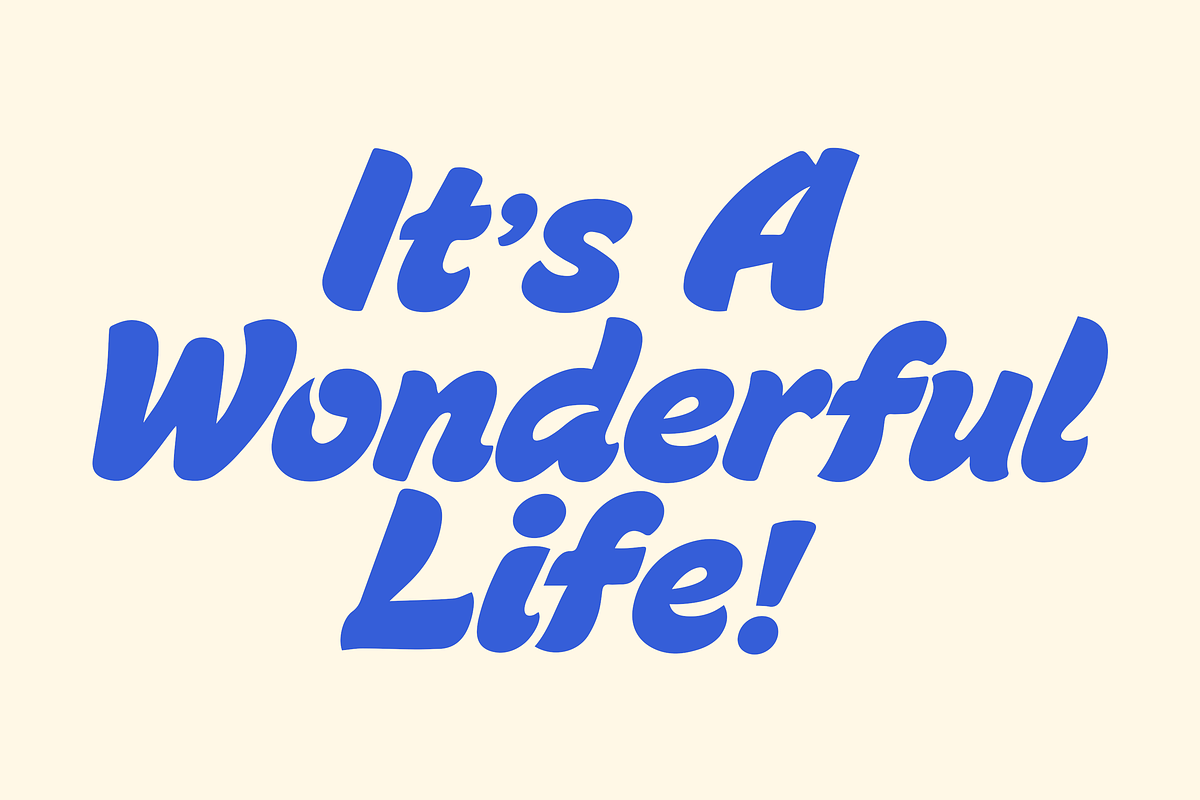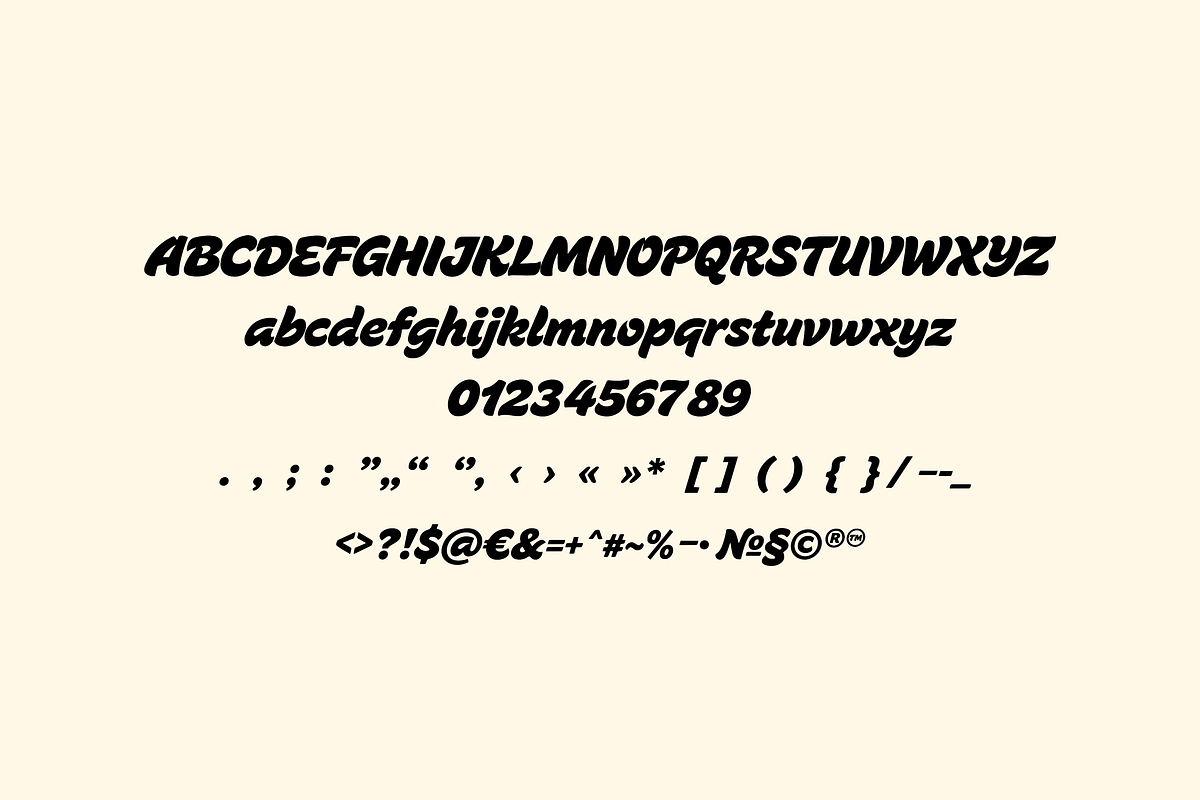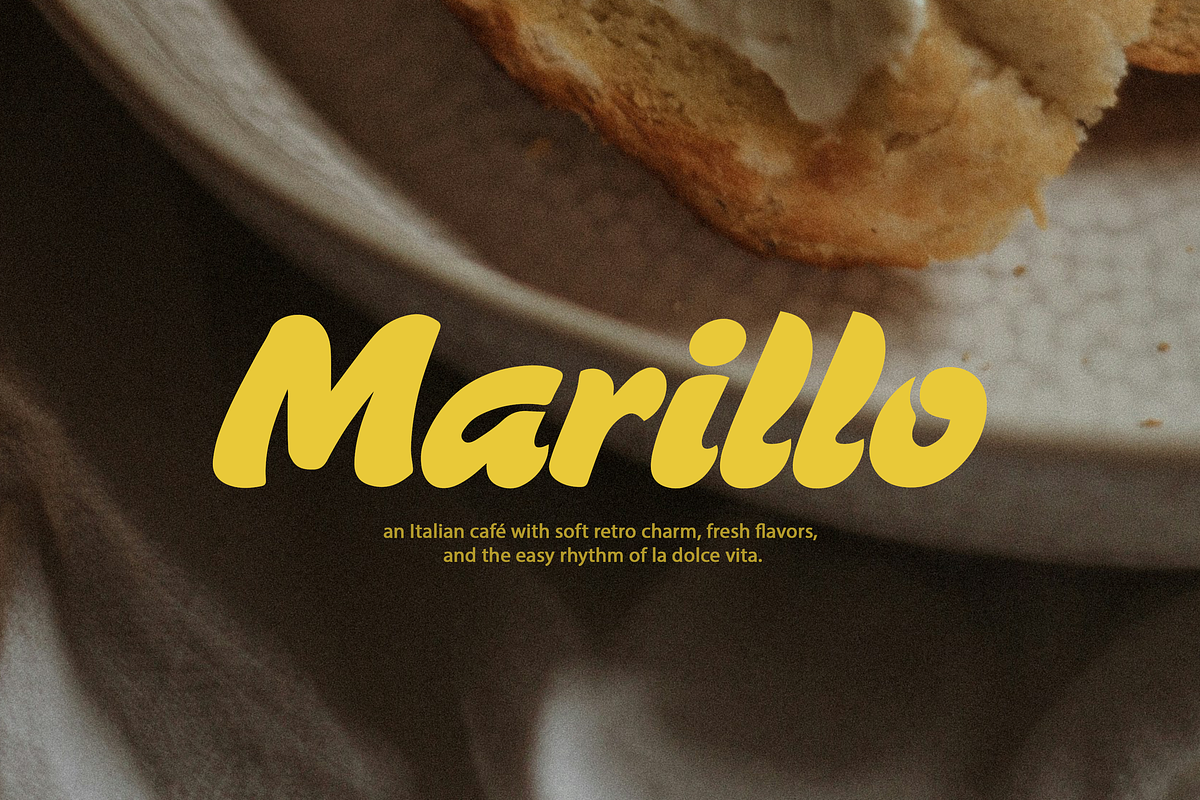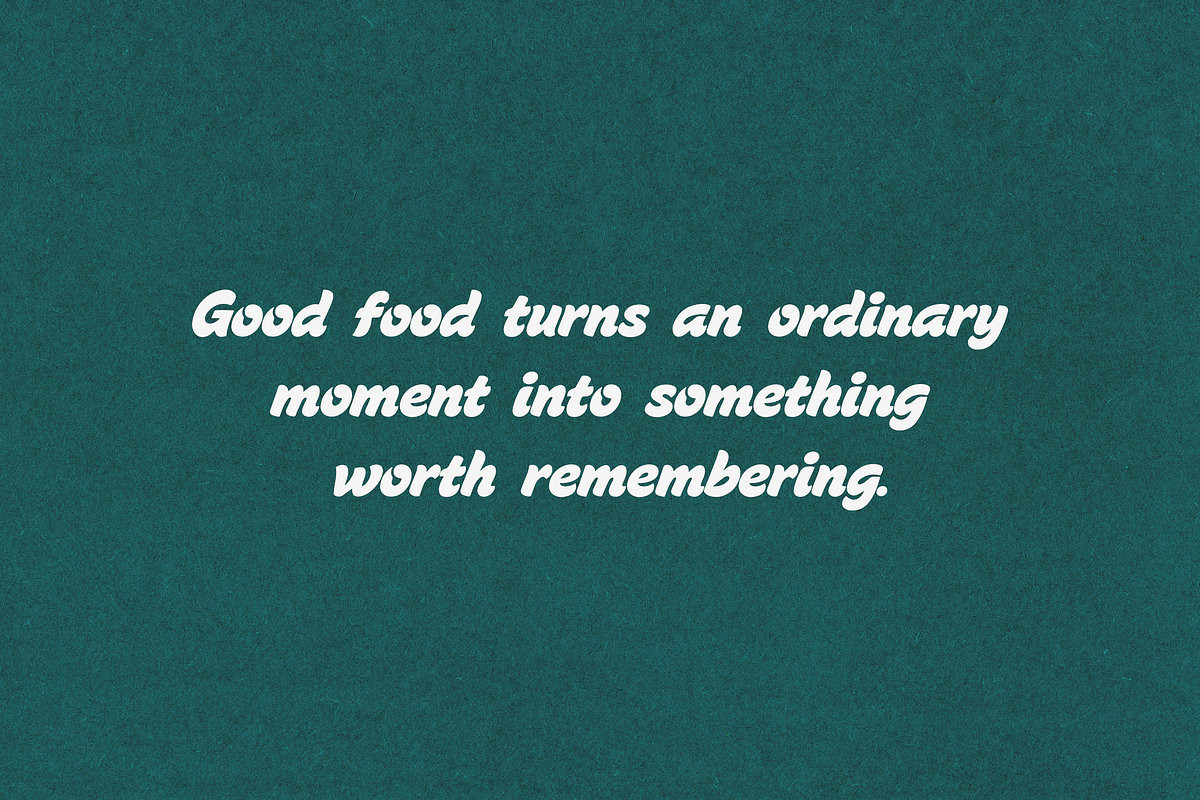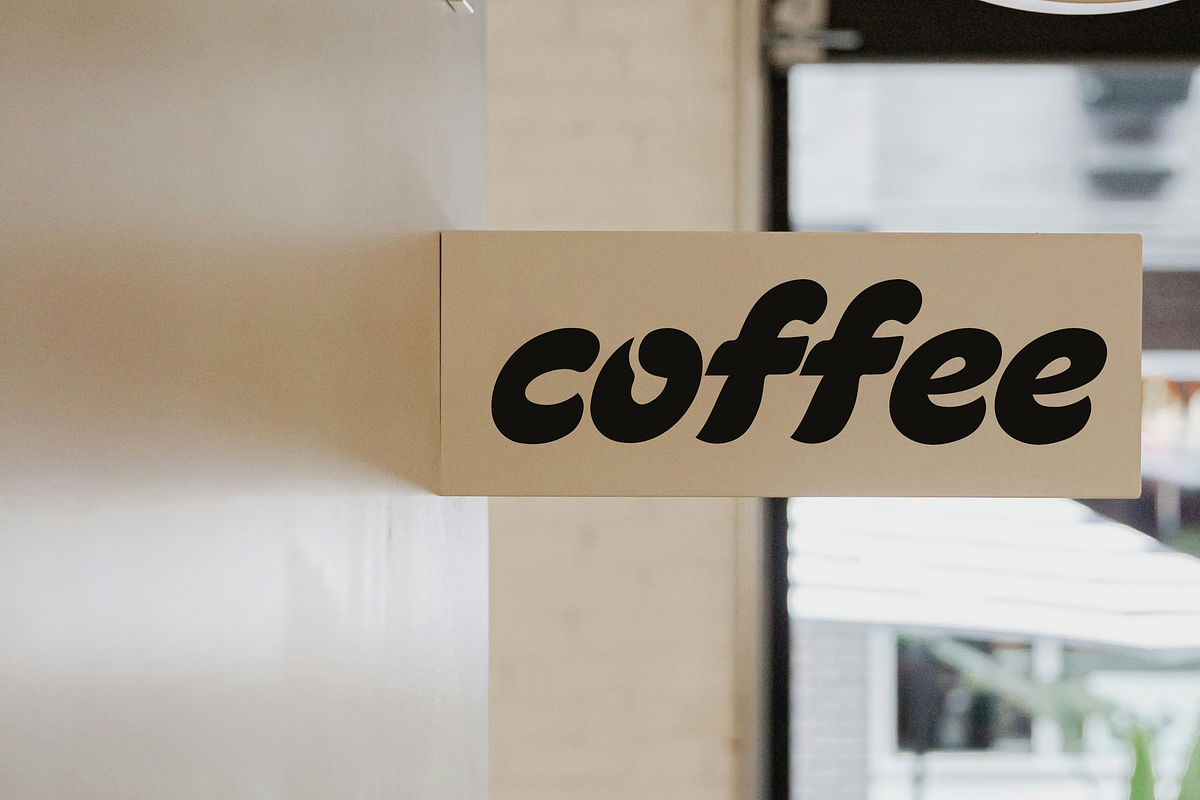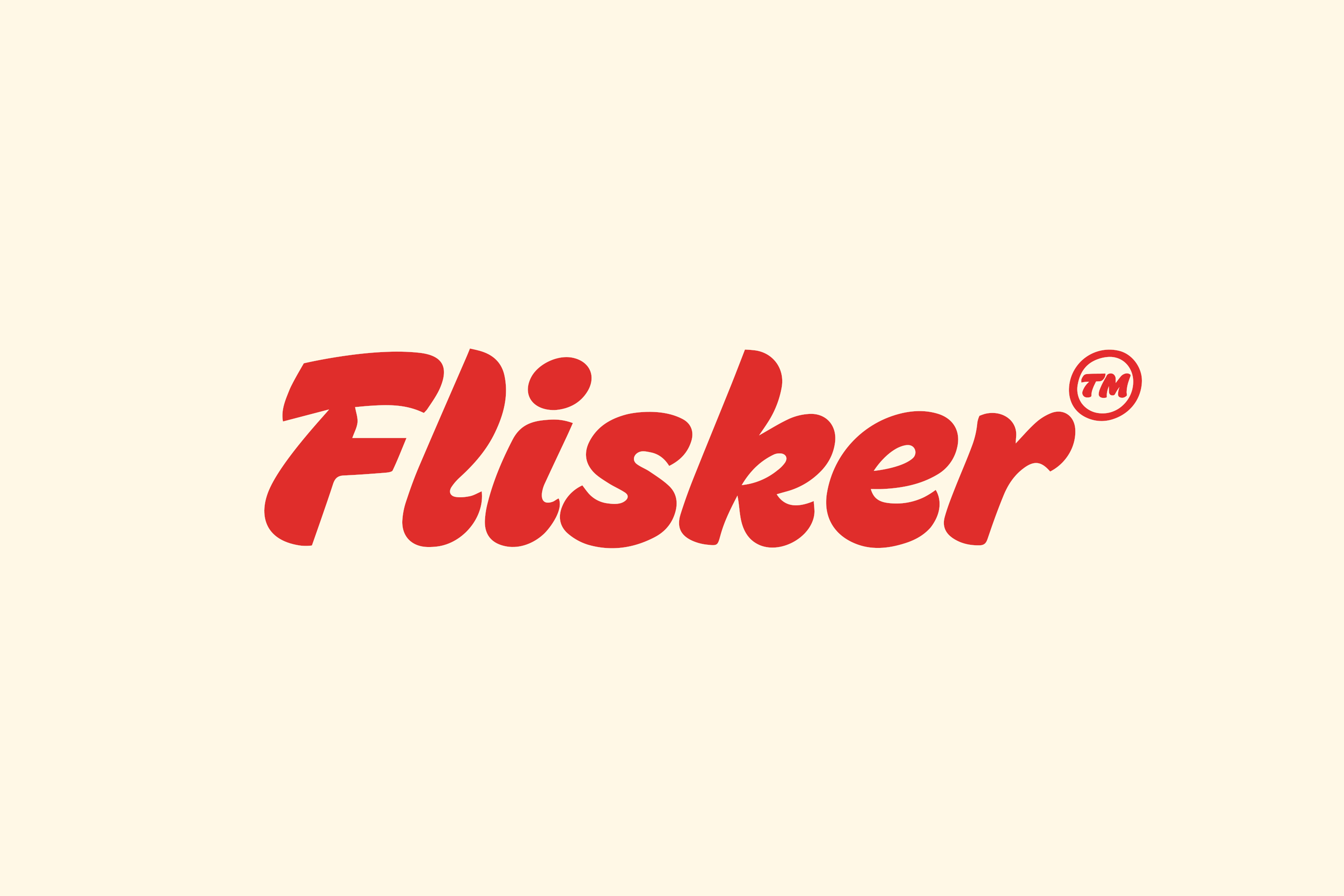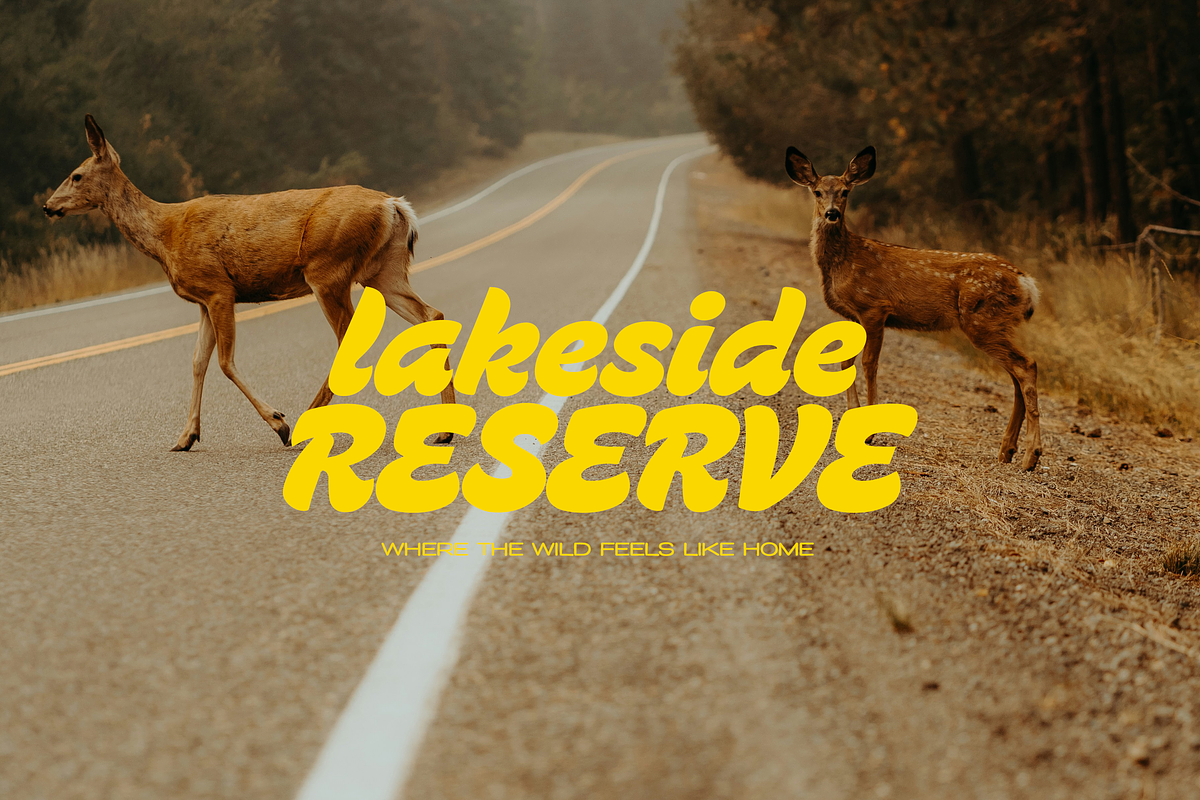
Flisker – Retro Italic Display Font
Flisker is a bold retro italic display font with smooth curves, playful energy, and a strong vintage-inspired personality. Perfect for logos, branding, packaging, posters, and standout headlines.